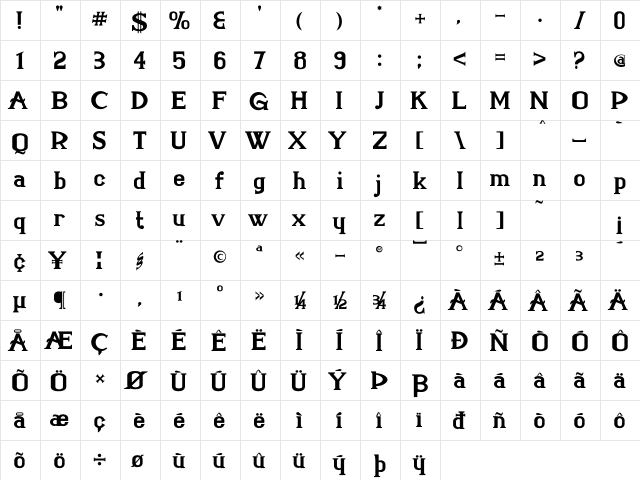
Marielle Franco Regular
Design Context for Marielle Franco Typeface
Marielle Franco takes a measured approach to typography — its balanced proportions and neutral character make it a reliable workhorse for both digital and print work.